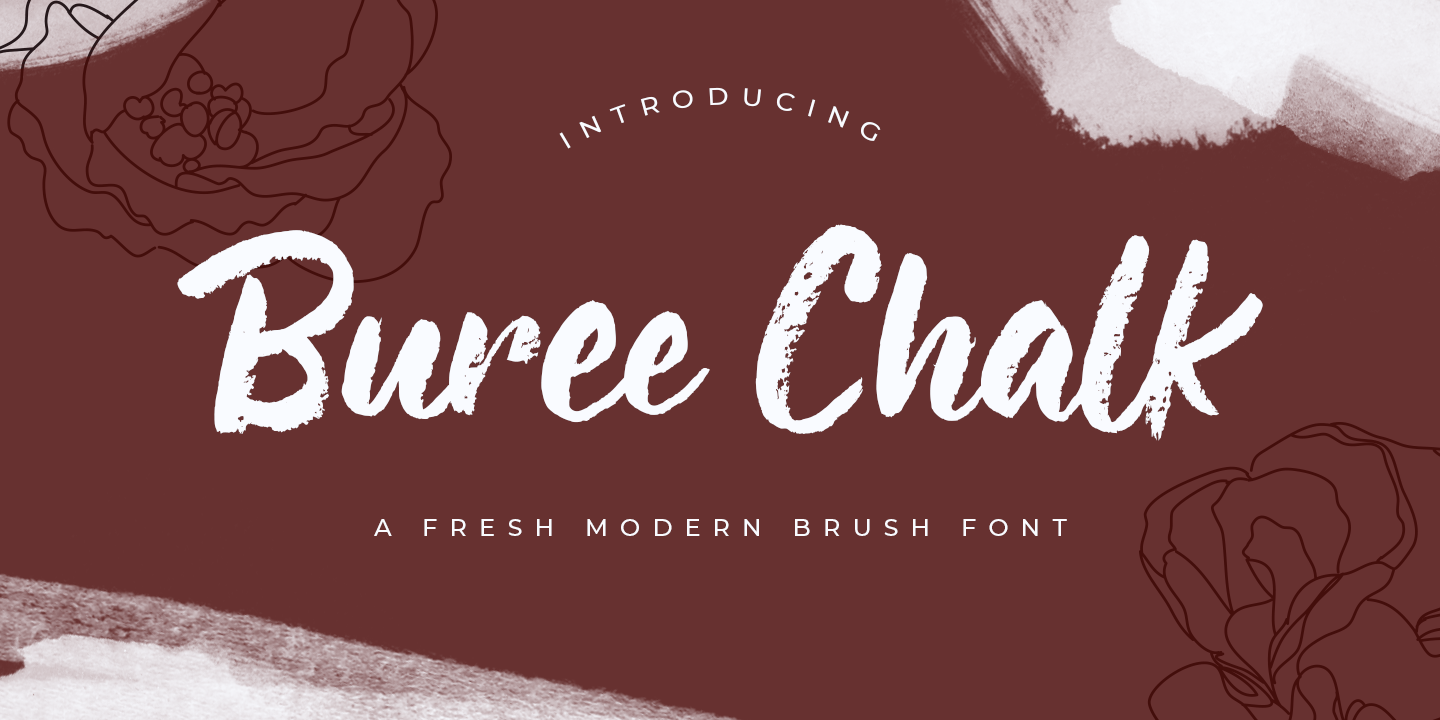
Buree Chalk Font is a wonderfully authentic and charming typeface, perfect for designs that aim to evoke a rustic, handcrafted, or playful blackboard aesthetic. Imagine it bringing a cozy touch to the menu board of a quaint café, adding a whimsical element to a classroom-themed invitation, or providing a genuine, homemade look to signage for a small, artisan shop. Its distinctive chalk-like texture and informal style make it ideal for creative digital content, artisanal product packaging, and any print materials where a sense of nostalgia, informality, or artistic flair is desired. From a farmer's market branding to a quirky social media post, this font infuses designs with character and a memorable, tactile quality.
Why Buree Chalk Font is So Exciting
What makes Buree Chalk Font so exciting is its incredibly realistic emulation of actual chalk on a blackboard. It's not just a rough font; it captures the nuanced imperfections, dustiness, and varying pressure that define genuine chalk lettering. This authenticity immediately adds warmth, personality, and a sense of handmade charm to any design. It can instantly transport viewers to a nostalgic place or give a fresh, informal vibe to modern content. This unique textural quality and its ability to evoke a specific, beloved aesthetic are what truly set Buree Chalk Font apart, making it a standout choice for projects aiming for a distinctive, tactile, and inviting appeal.
Buree Chalk Font Family
The Buree Chalk Font family typically focuses on delivering its distinct chalk-effect style with high impact. While it might not have an extensive range of traditional weights like a sans-serif, you can generally expect to find a well-crafted Regular or Bold weight, sometimes accompanied by stylistic alternatives or dingbats that further enhance its chalky aesthetic. These variations are designed to provide flexibility within its specific style, allowing designers to create compelling headlines, subheadings, and decorative elements that maintain the font's unique, textured charm across different applications.